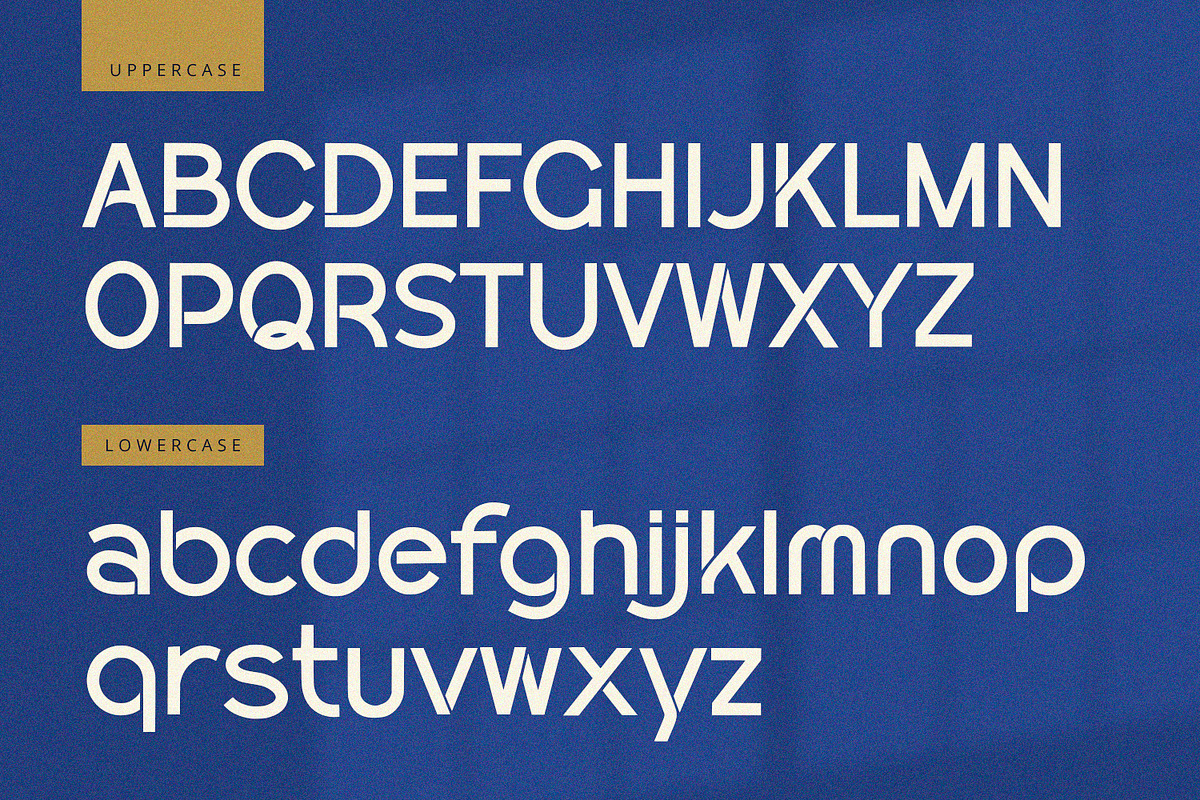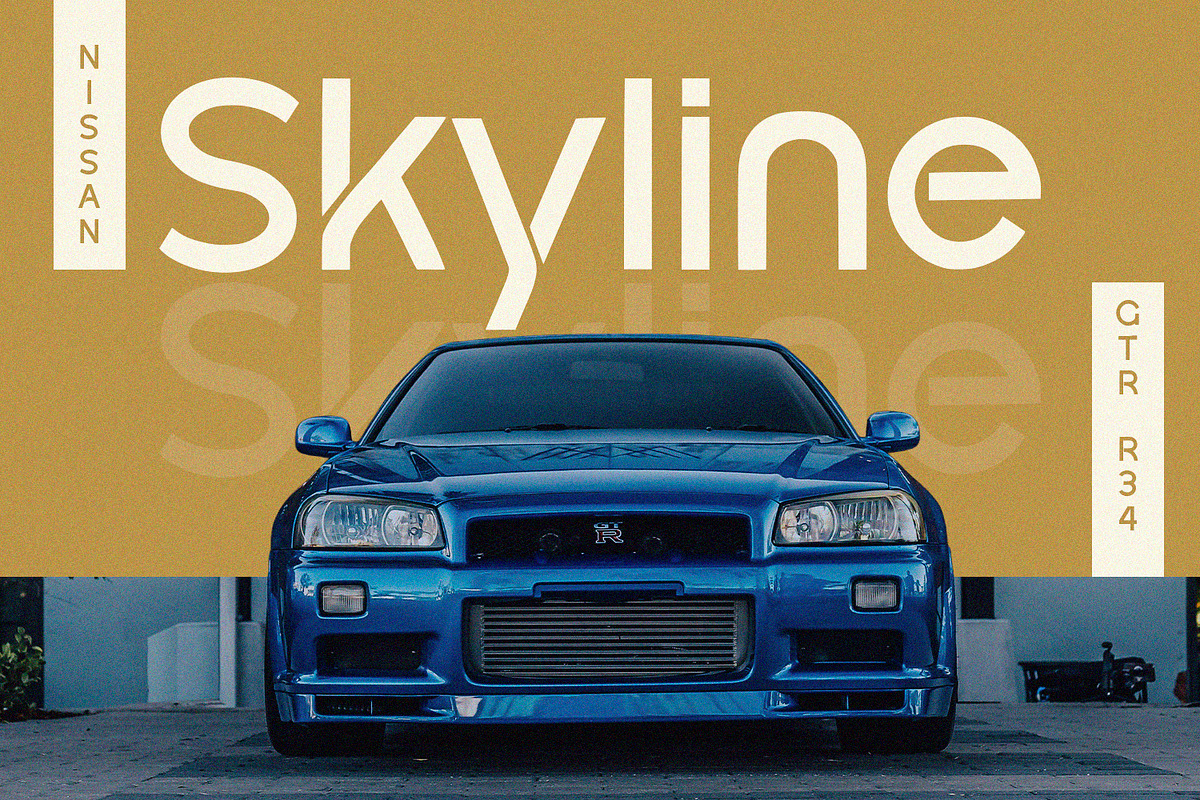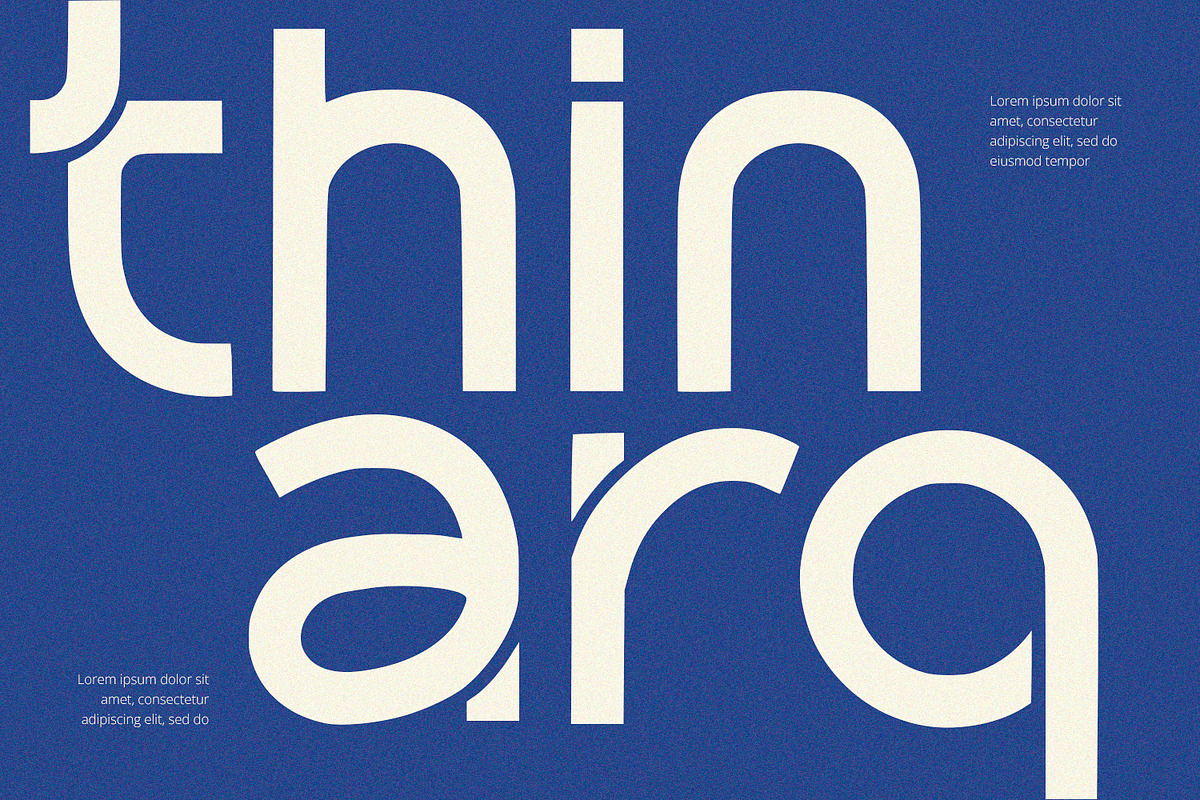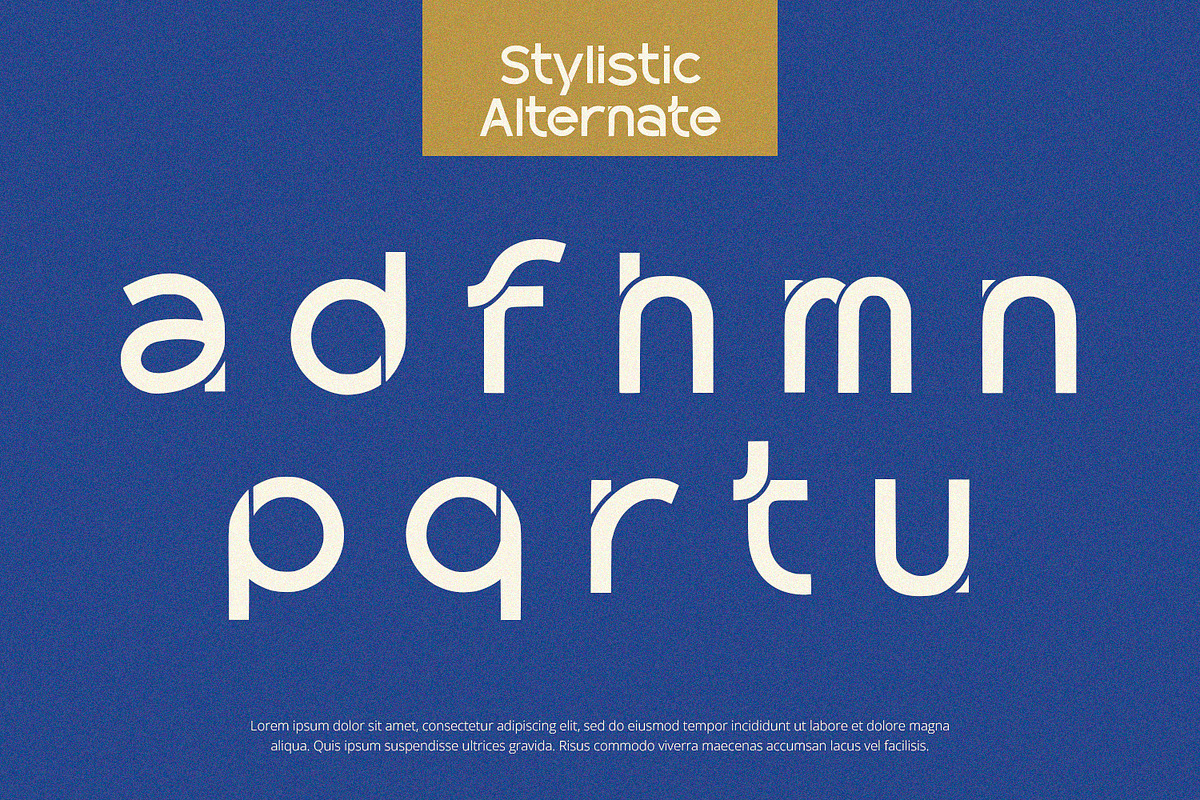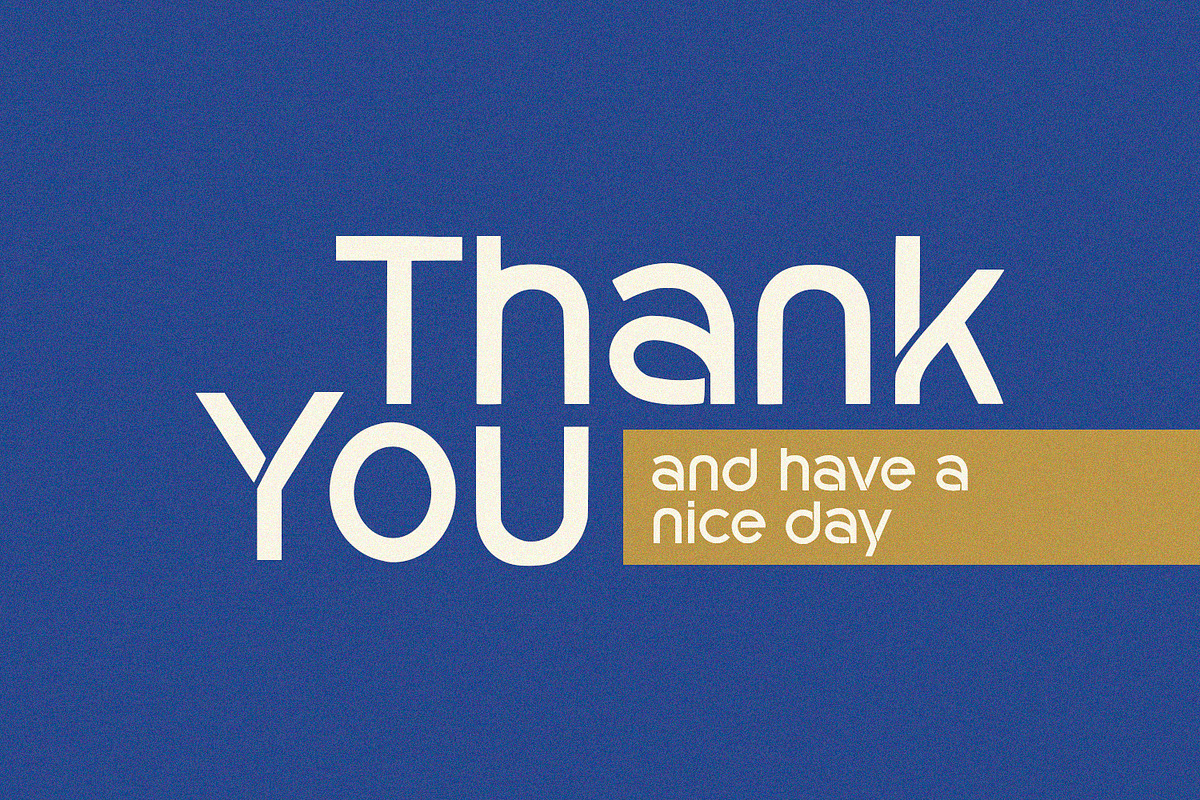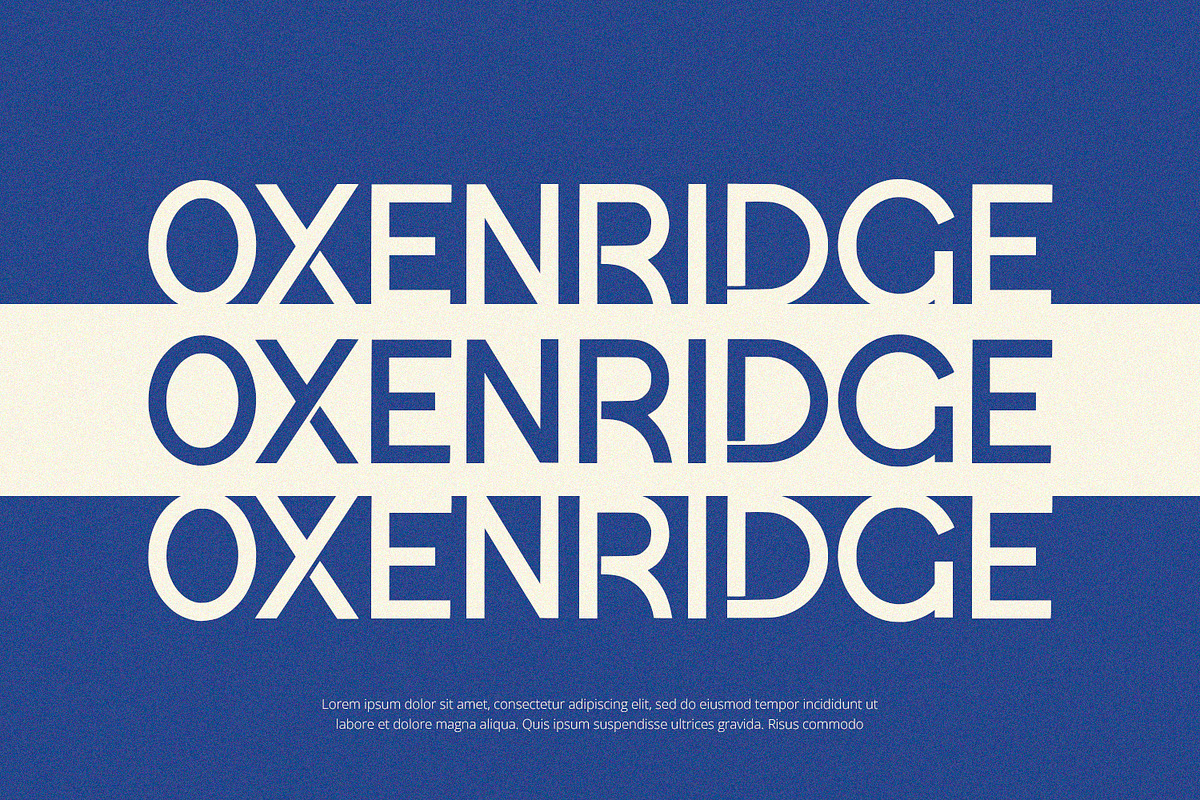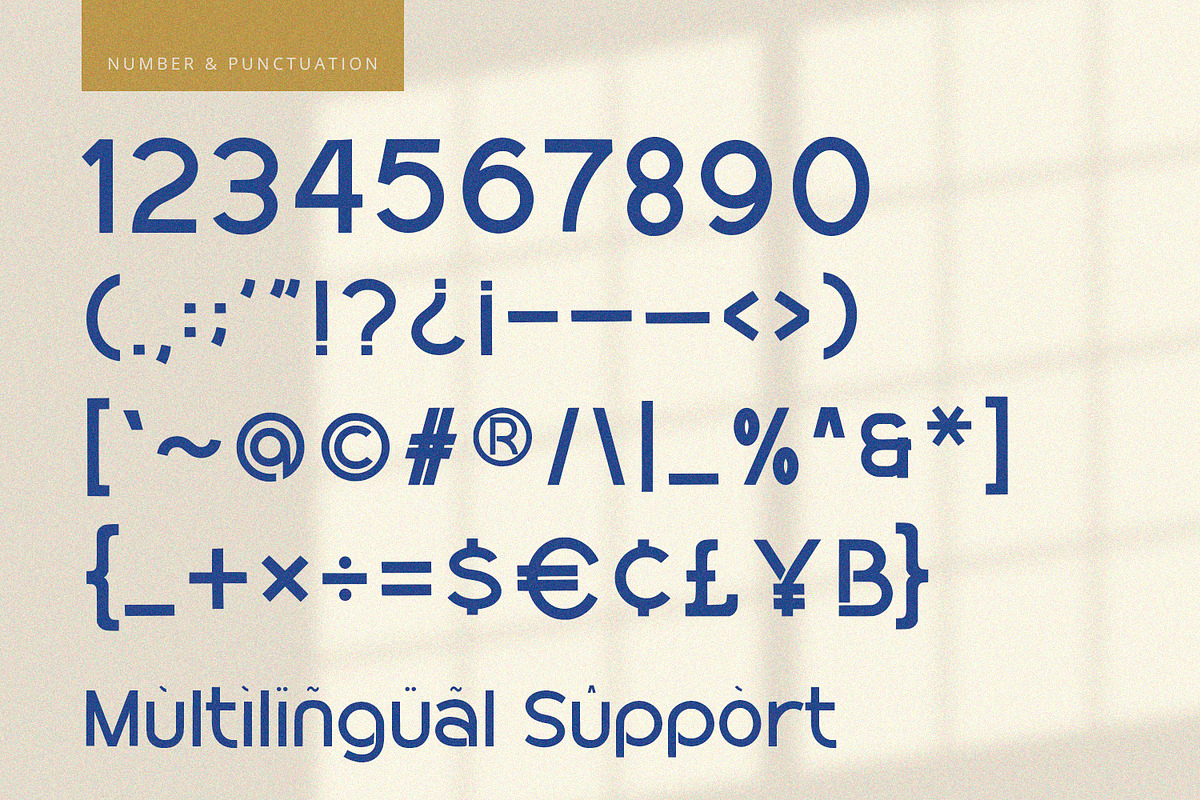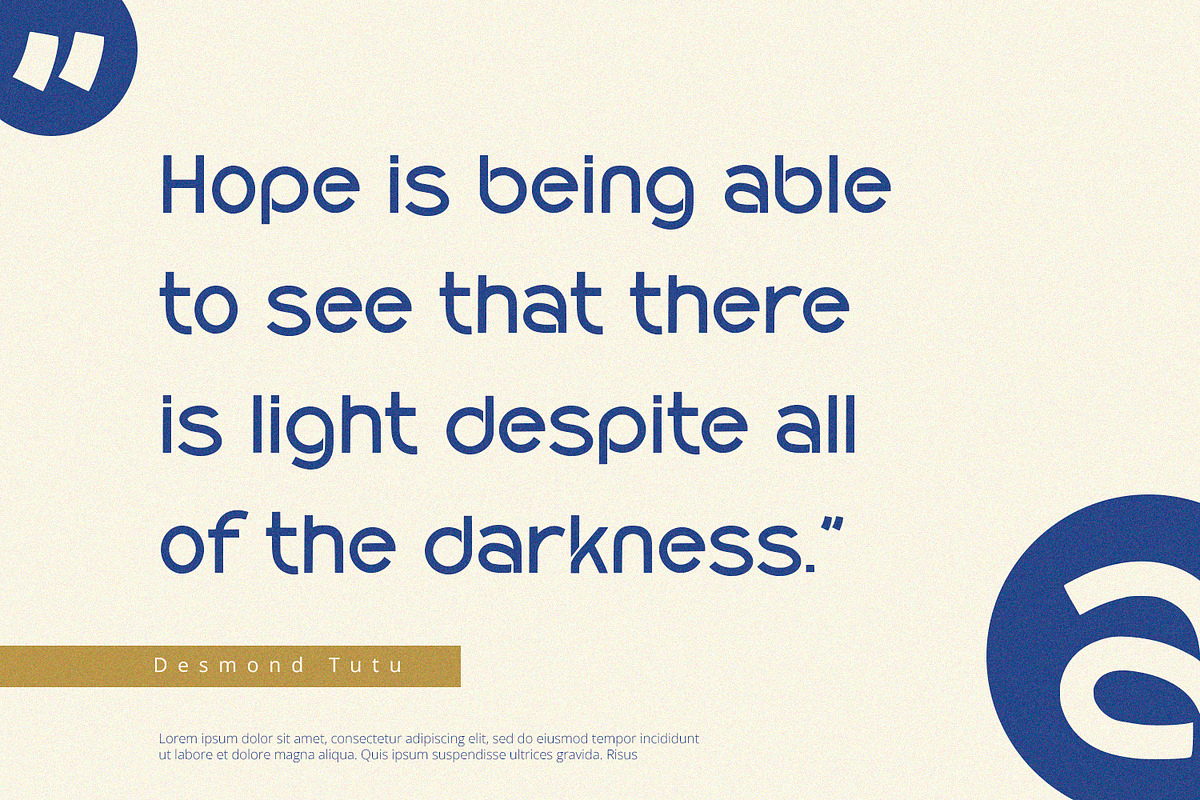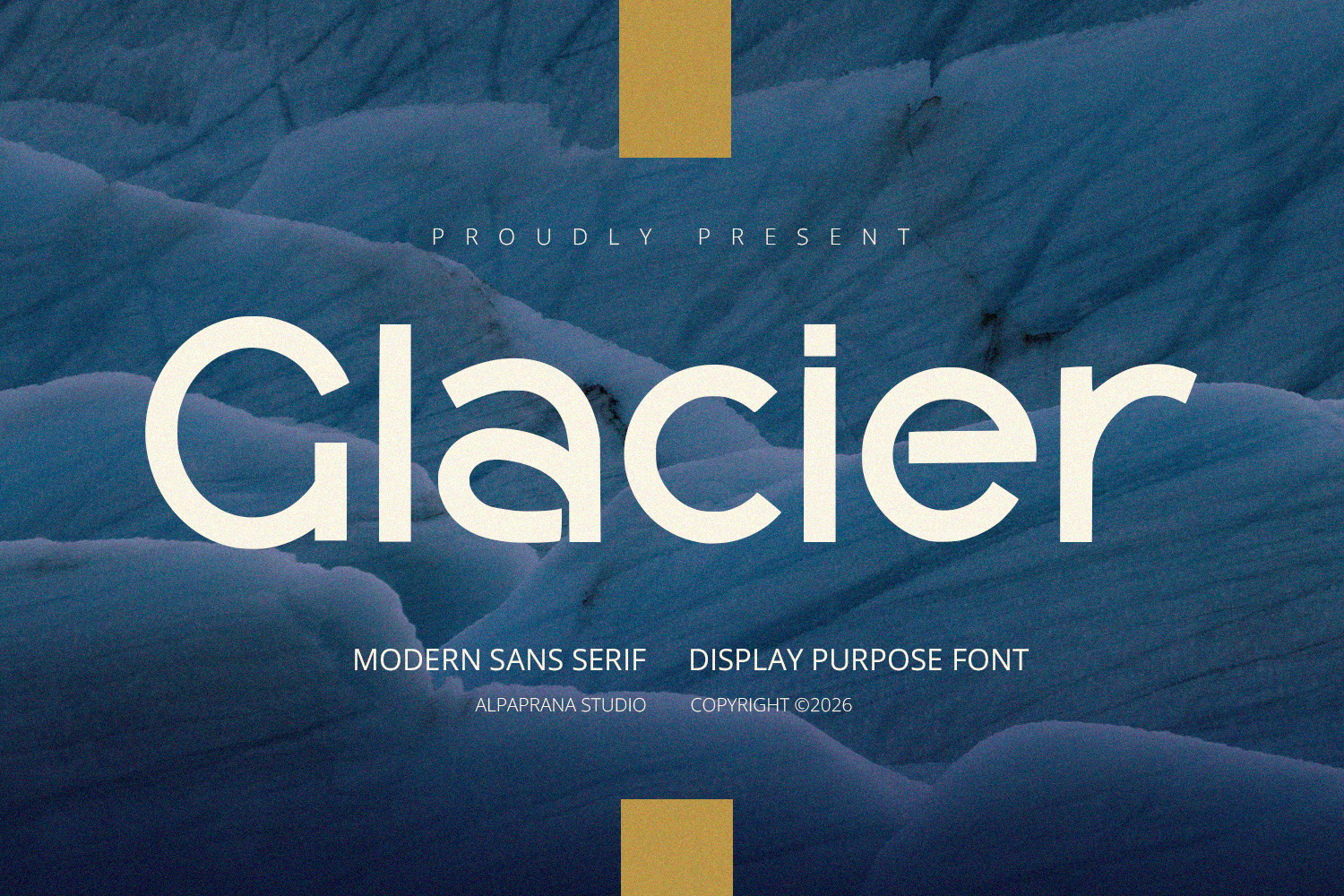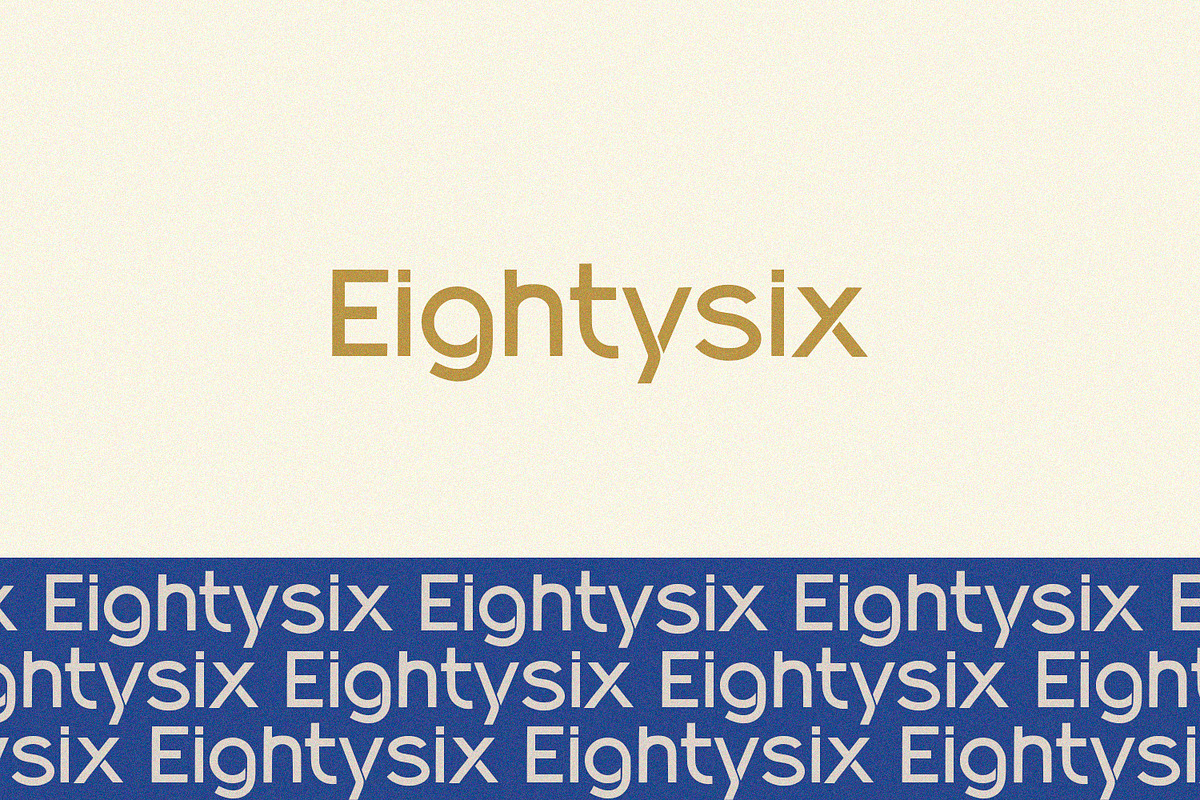
Glacier - Display Font
Glacier is display font with modern feels. It will be perfectly used for Branding, Logo Design, Lettering, Logotype, Clothing, Poster, magazine, packaging, posters, shopping bags, t-shirts, book covers, photography, special events and other design project.